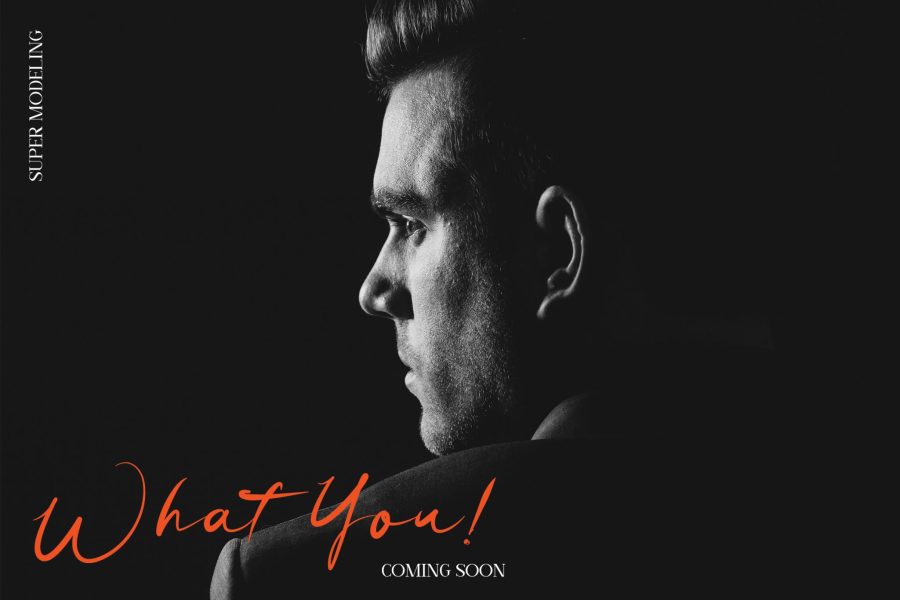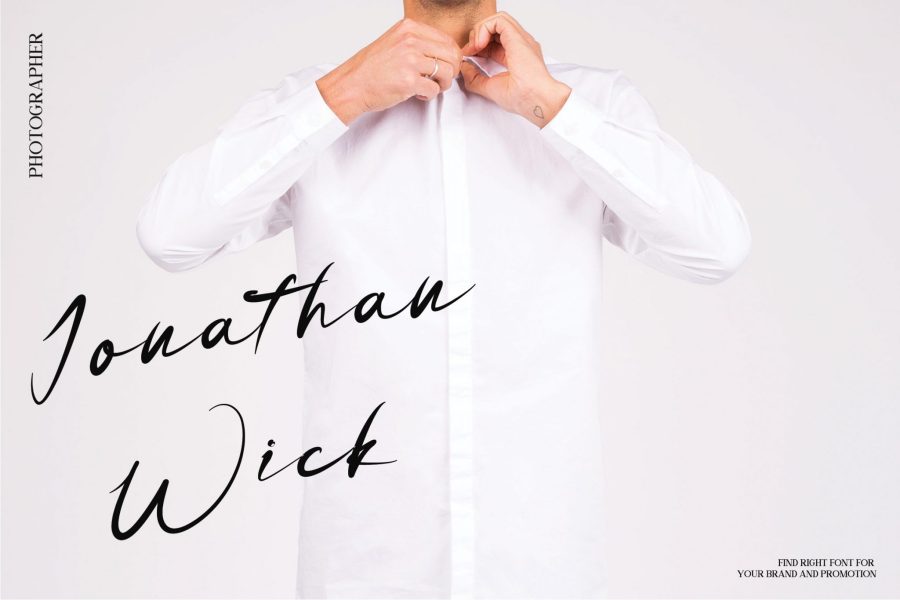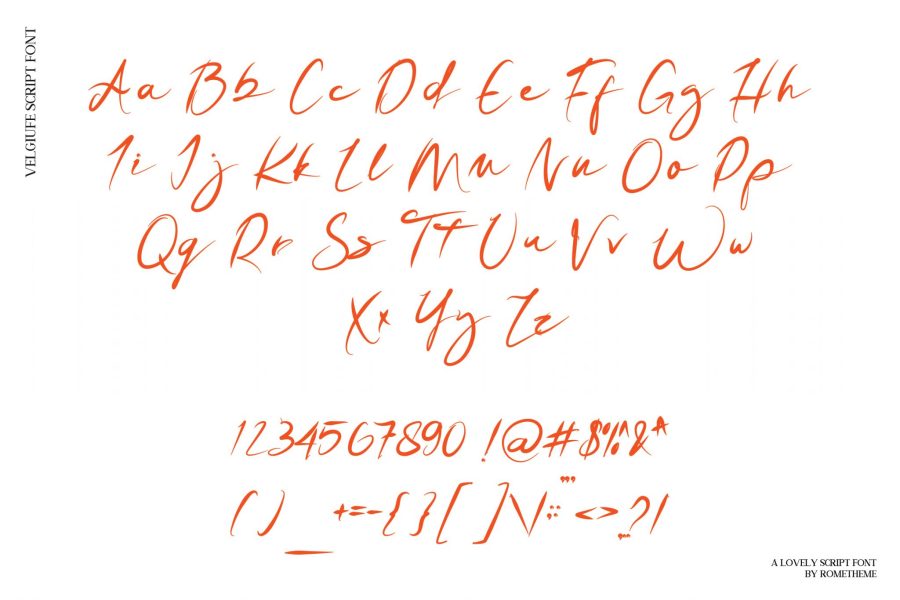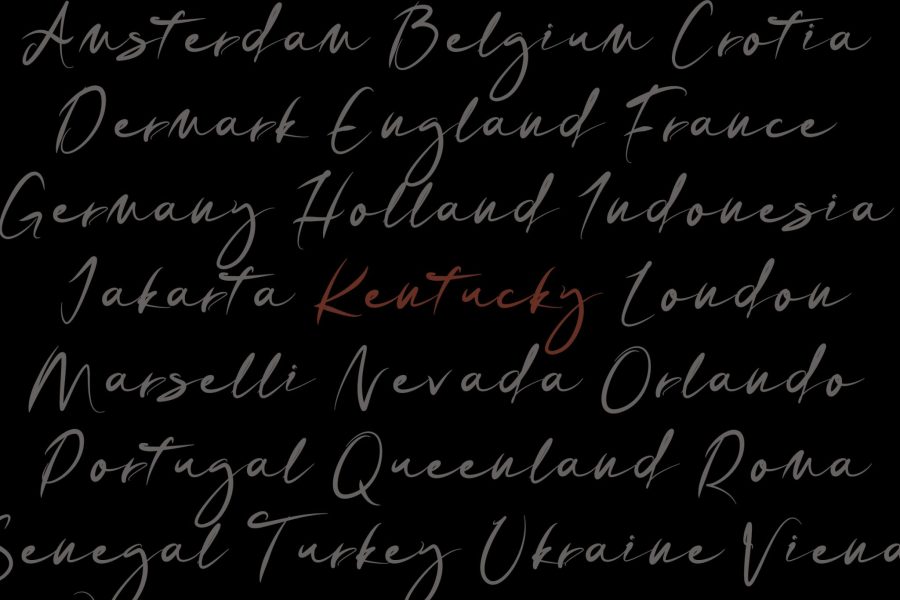
Velguife is a simple and classy handwritten font, this font looks elegant, classy, readable, stylish, catchy and easy to use.Velguife is the best choice for your professional design projects, including signature, watermark on photography, quotes, wedding, fashion, letter, invitation, business card, logo, branding, magazines, social media, advertisements, product designs, and much other design projects.
Highlights:
• Basic Latin A-Z and a-z
• Numbers
• Symbols